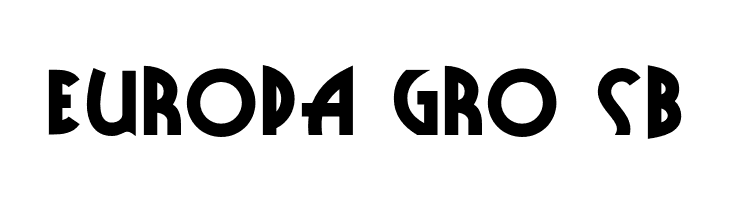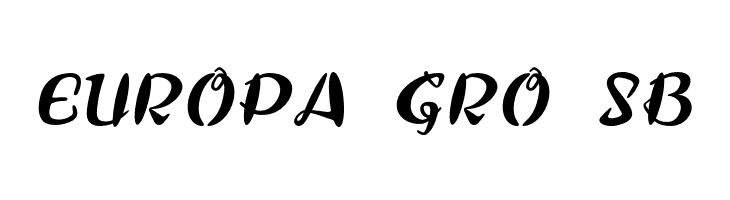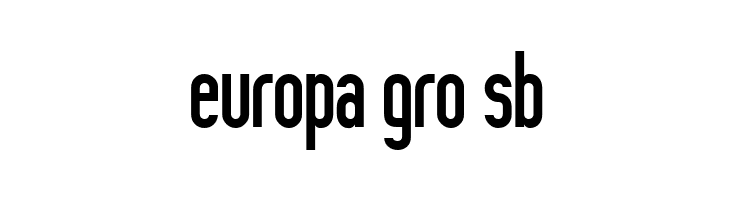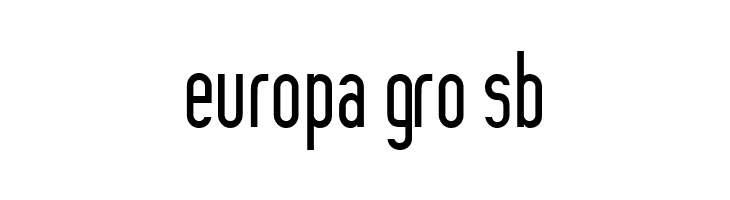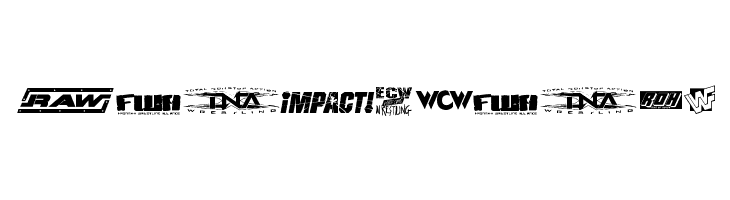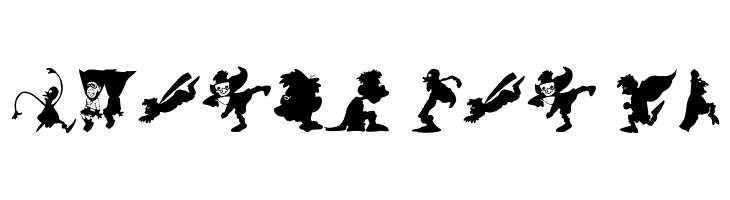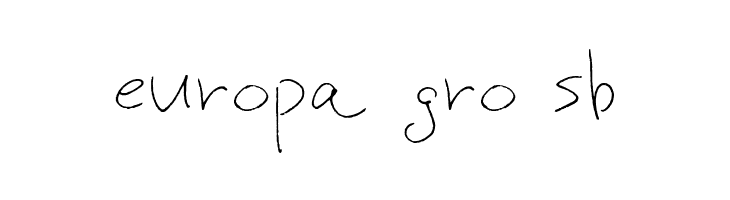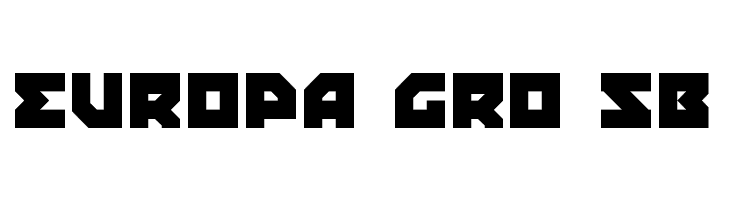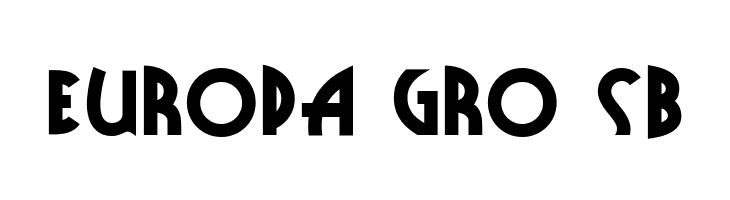
• Pro Wrestling Logos
( Fonts by Steve Ferrera )
Bold, condensed, slanted sans-serif with high energy and impact.
• Propaganda Regular:Version 1.00
( Fonts by Matthew Welch - www.squaregear.net/fonts/ )
A bold, geometric font with sharp angles and a blocky structure.
• Protectors
Cartoonish superhero-themed decorative font with illustrated character glyphs.
• Proto Uncertain
• Prozak
A bold, modern, and condensed font with a geometric structure.
• Prozak Light
A modern, narrow sans-serif font with consistent stroke width and clean lines.
• Prozak Bold
A bold, modern font with tall, slightly condensed characters and a sleek appearance.
• Public Enemy NF
A bold, geometric font with Art Deco influences, ideal for impactful designs.
• PublicEnemyNF
A bold, geometric font with sharp angles and a dynamic style.
• Pulipuli Italic
A playful, italic script font with smooth curves and elegant swashes.